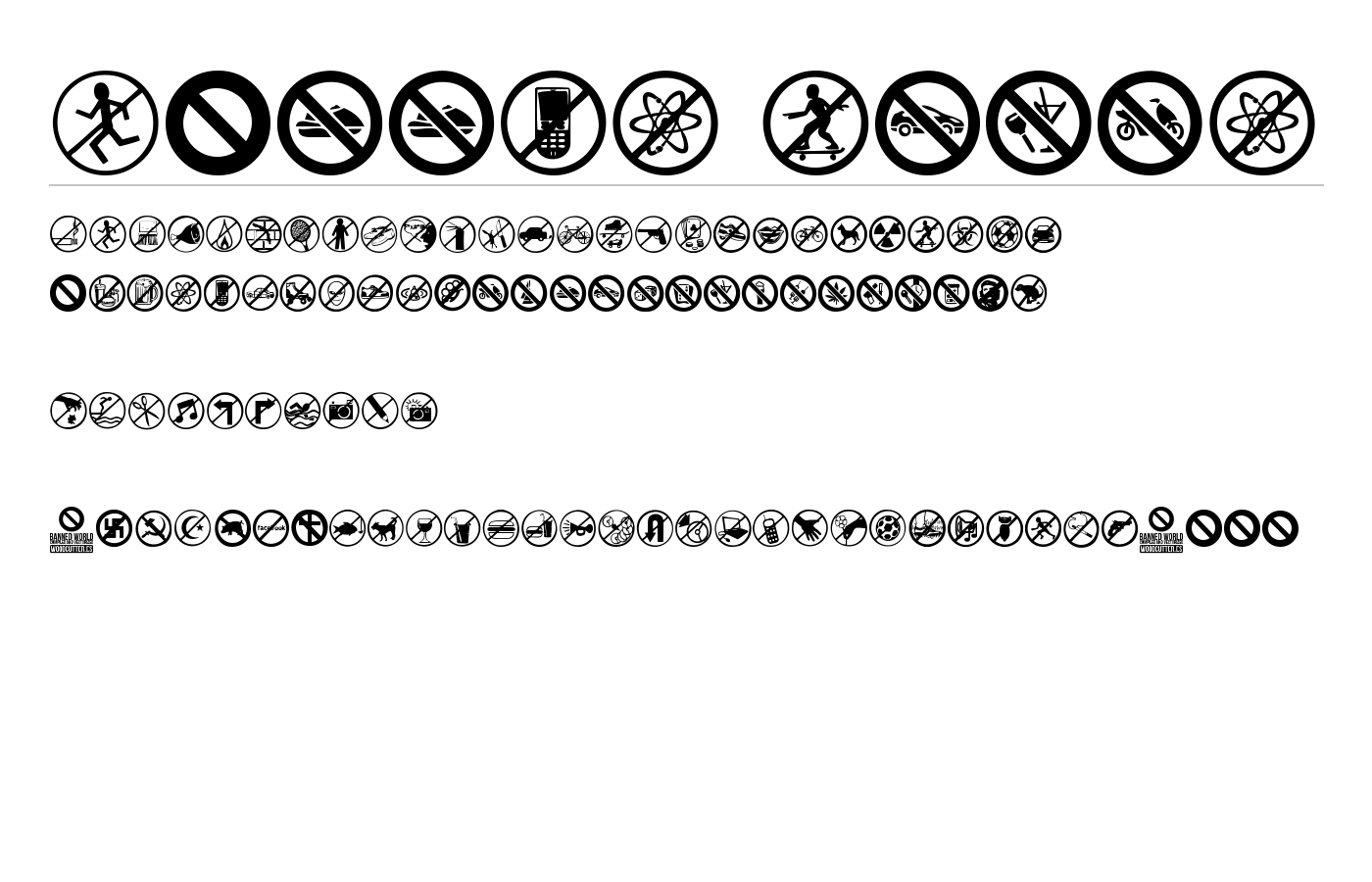
Banned World Font is a unique symbol-based typeface featuring a variety of universal prohibition icons enclosed in circles with diagonal slashes. Its bold, black-and-white design creates a strong visual impact perfect for warning signs, safety notices, and signage that requires immediate attention. This font is ideal for use in safety communications, public spaces, and instructional materials where clear visual language is essential.
Banned World Font